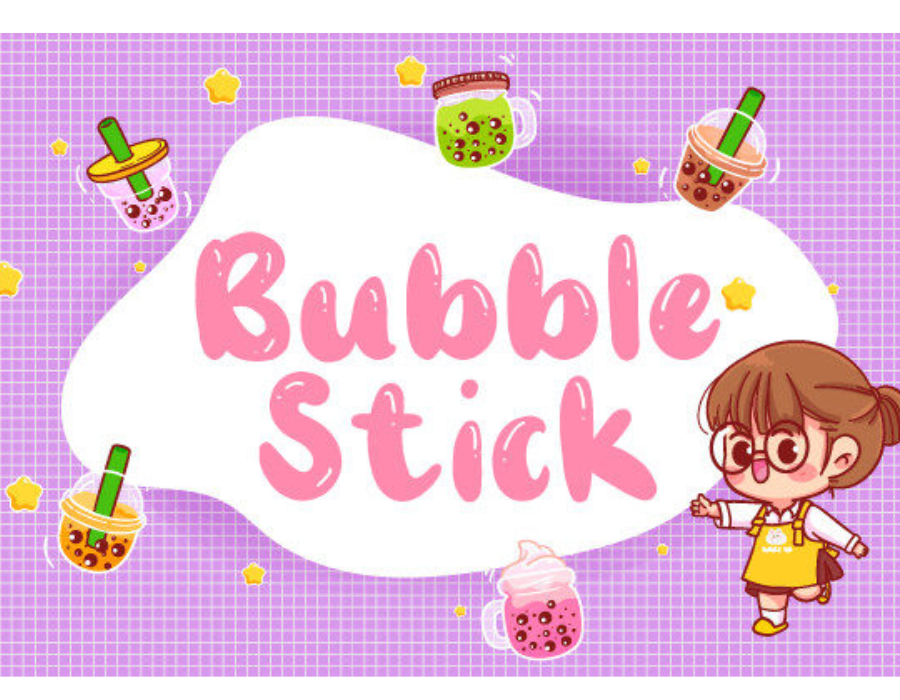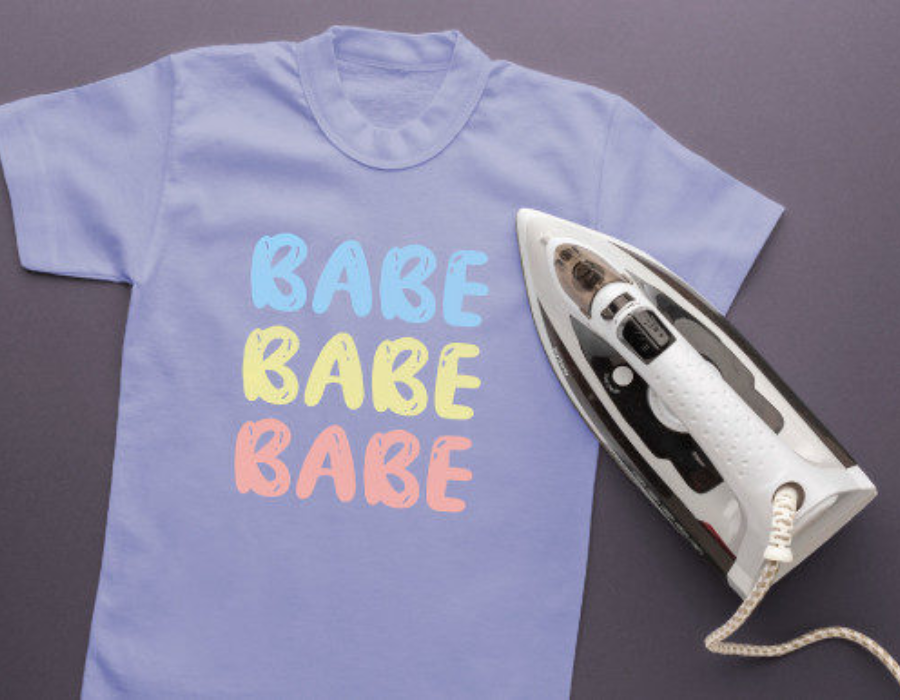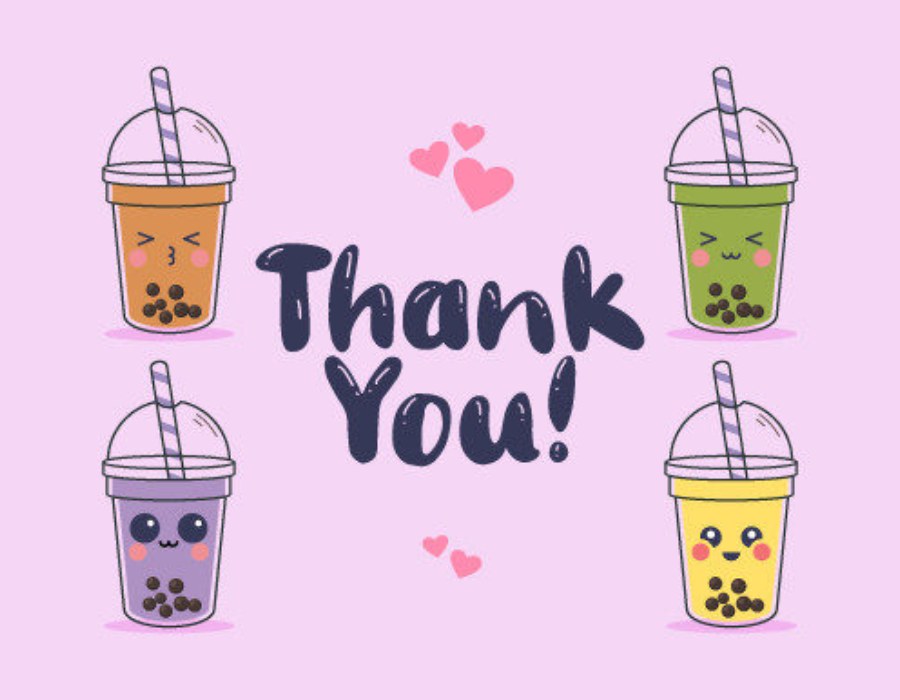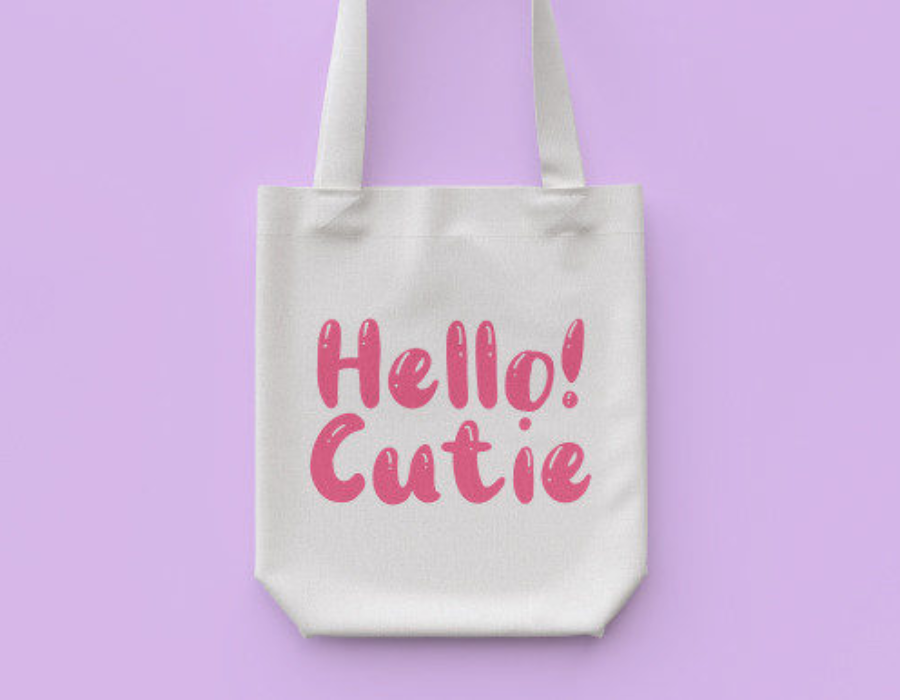
Bubble Stick Font
Bubble Stick Font: Playful Typography with a Bold Twist
Introduction
Typography is more than just letters—it’s an art form that shapes how people feel when they look at words. Fonts can be serious, elegant, modern, or playful, and the Bubble Stick Font falls firmly into the fun and creative category. With its round, bold shapes and lively personality, Bubble Stick is the perfect choice for designers who want to bring energy, joy, and bold character to their projects.
Versatile Applications
Bubble Stick is a display font, meaning it shines brightest in larger sizes where its personality can be fully appreciated. Its versatility makes it a go-to choice for a variety of creative uses: